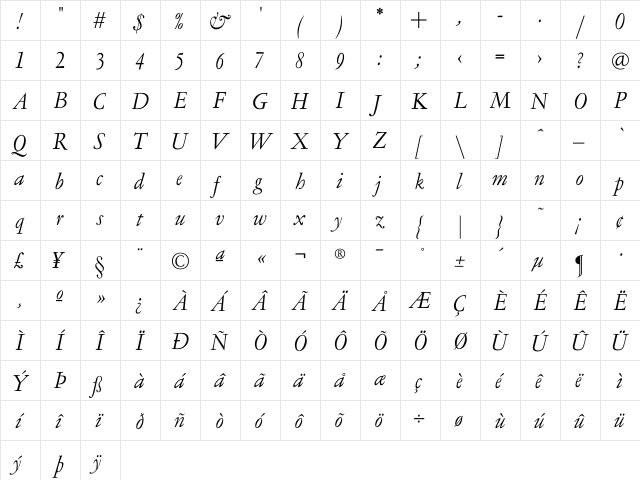
LTC Garamont Text OT Italic
| Designer | Frederic Goudy, Jim Rimmer |
Design Context for LTC Garamont Text OT Typeface
LTC Garamont Text OT is a composed and adaptable typeface that performs quietly and consistently across a wide range of design contexts. The slanted form adds forward momentum and visual energy.
Pro Tip: Use LTC Garamont Text OT for emphasis, pull quotes, and subheadings where its slanted energy can add rhythm to the layout.